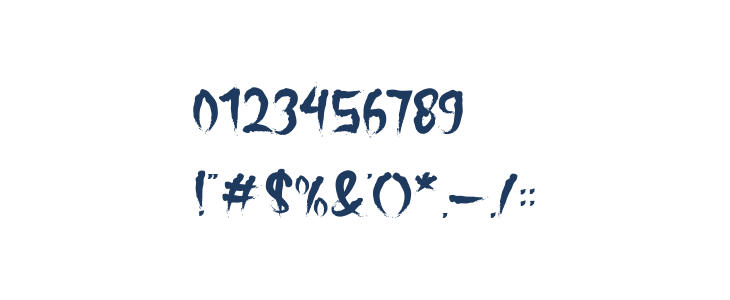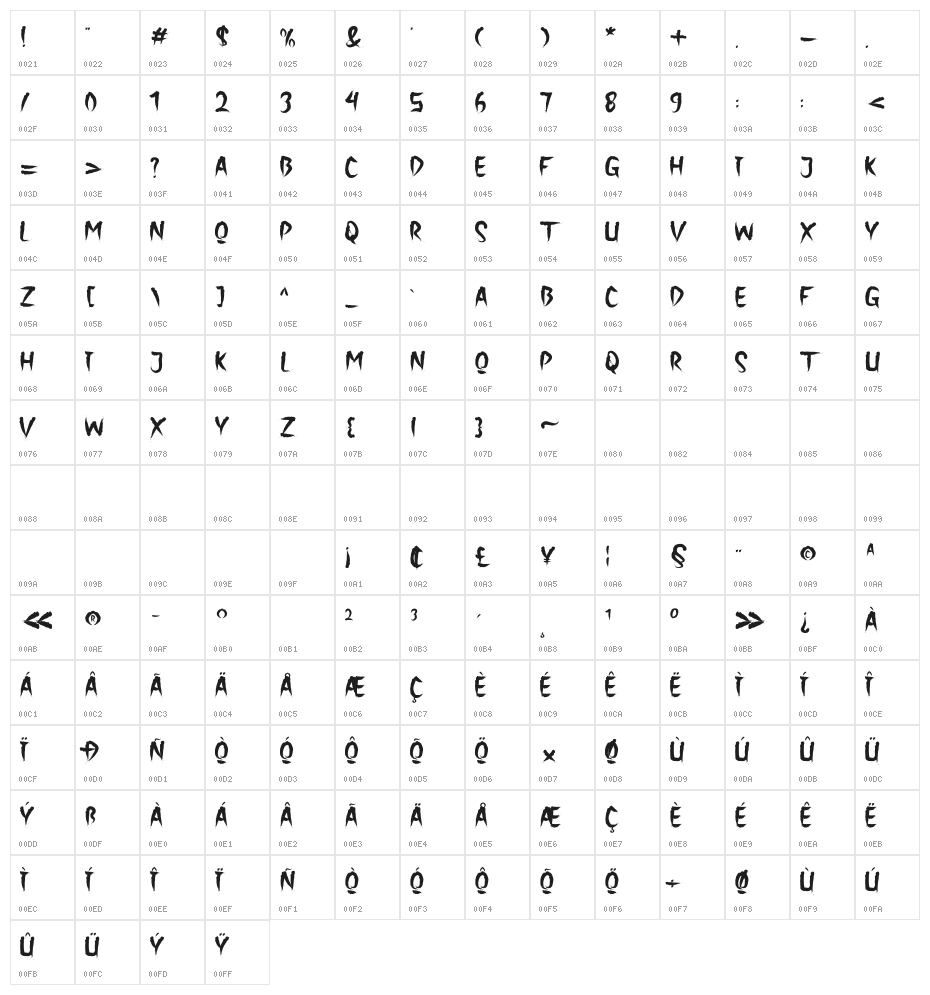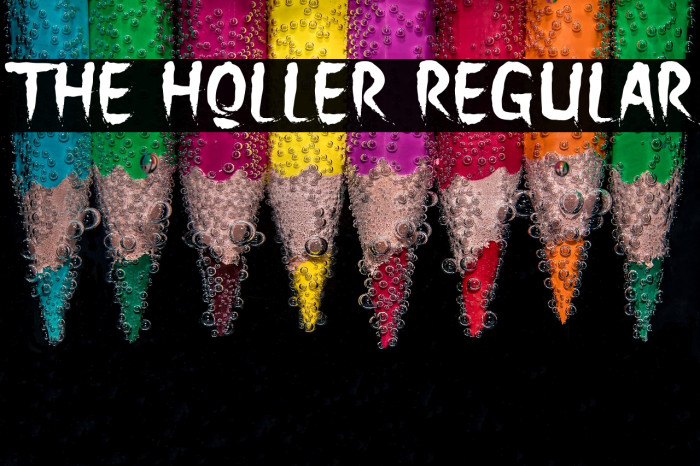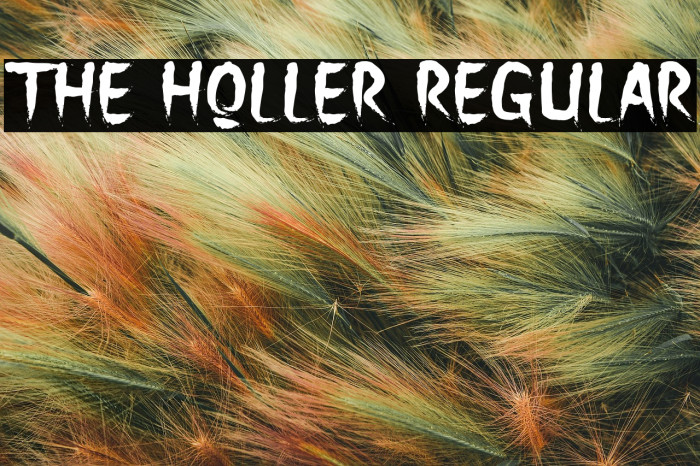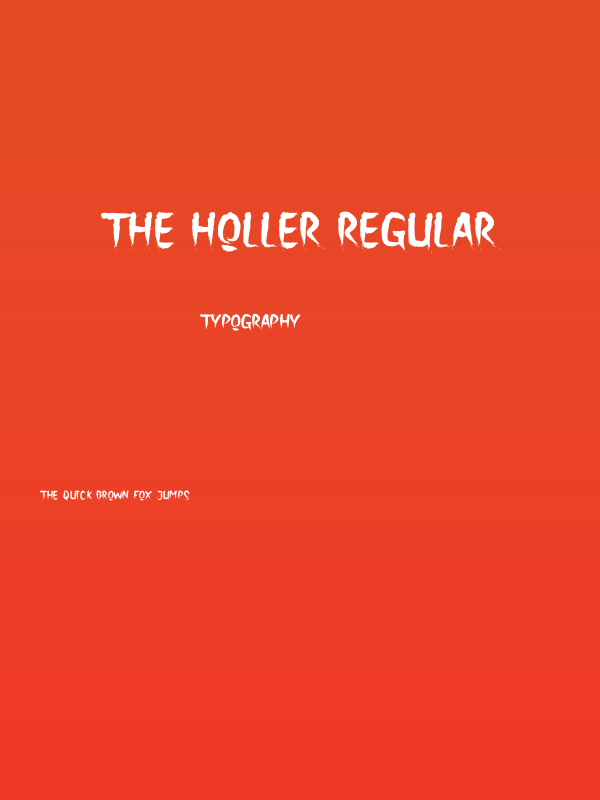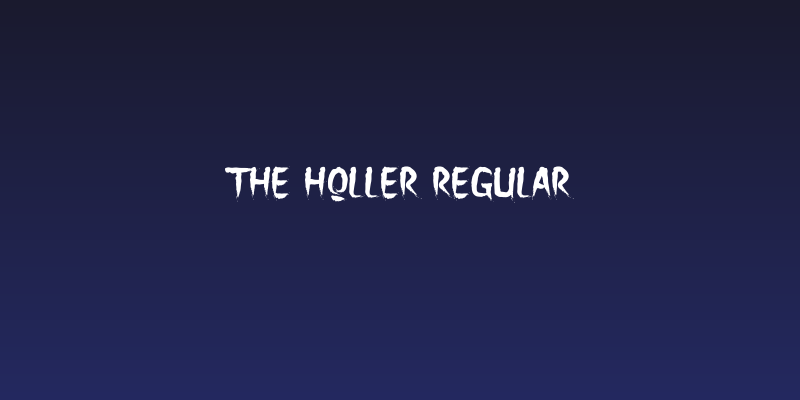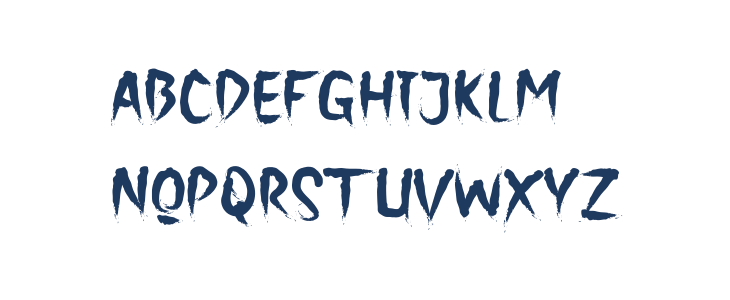
The Holler Regular Font
The Holler Regular Description
This font exhibits a bold and expressive style, characterized by its brush-like strokes and dynamic appearance. The letters have a hand-painted quality, with irregular edges and varying thickness that give it a raw and energetic feel. The uppercase and lowercase letters maintain a consistent style, with a slightly condensed form that enhances its boldness. Numbers and special characters follow the same artistic approach, ensuring a cohesive look across all elements. This font is ideal for projects that require a strong visual impact and a touch of artistic flair.
| Overall Style | Modern, Artistic |
| Proposed Projects | Ideal for posters, album covers, branding, and artistic projects requiring a bold statement. |